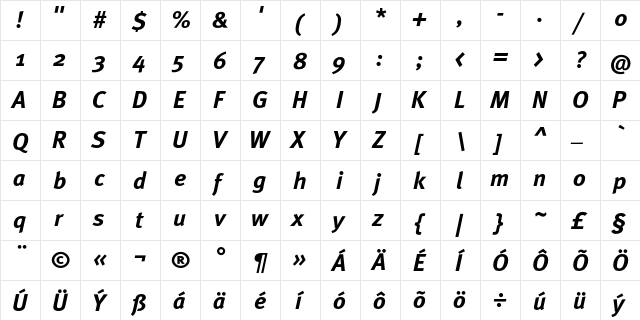
MetaBoldCE Italic Font Preview
Design Context for MetaBoldCE Typeface
MetaBoldCE offers clean, dependable letterforms without strong stylistic allegiance, making it a practical choice for designers who need flexibility. Its italic angle brings a sense of urgency and motion to the letterforms. Its bold stroke weight gives it real presence on the page.
Pro Tip: Try MetaBoldCE for annotation and caption copy alongside an upright companion — the contrast in angle creates a dynamic but ordered typographic system.